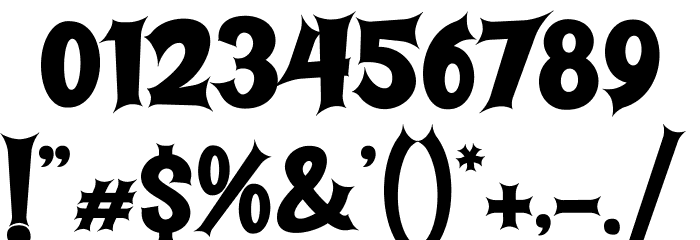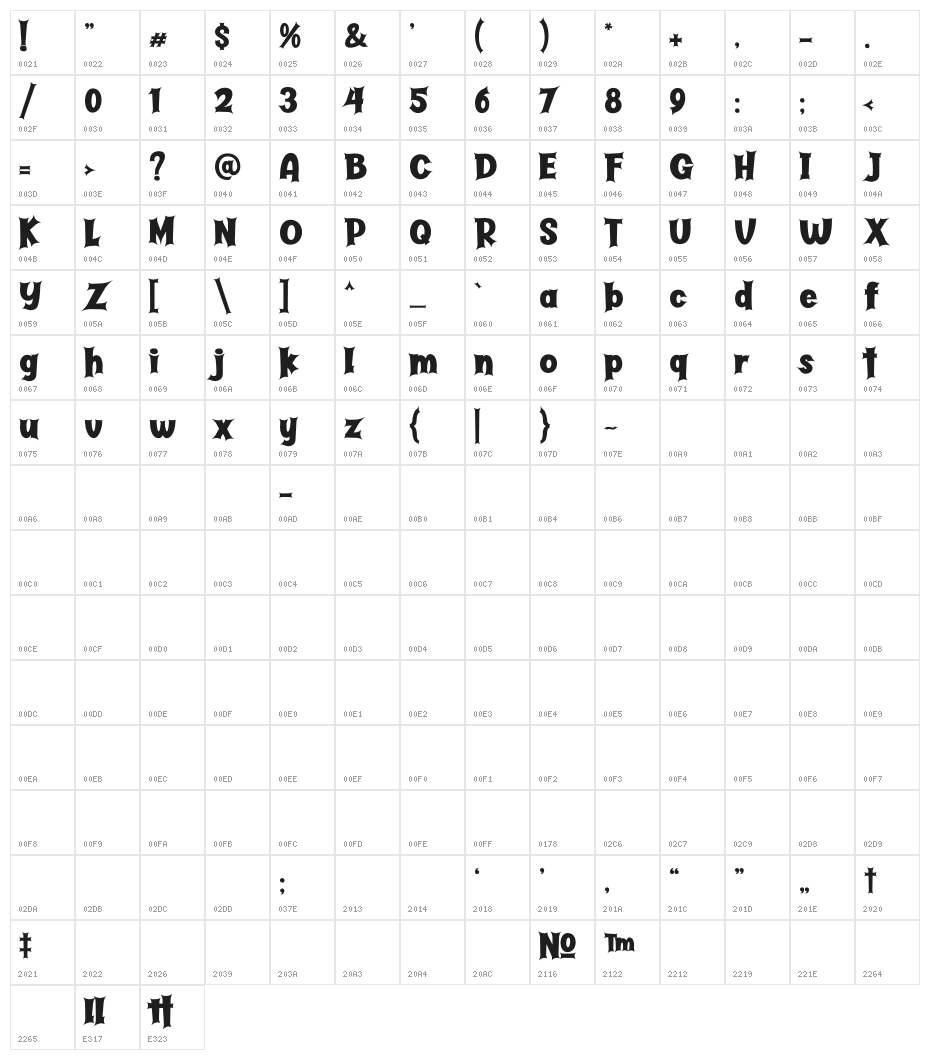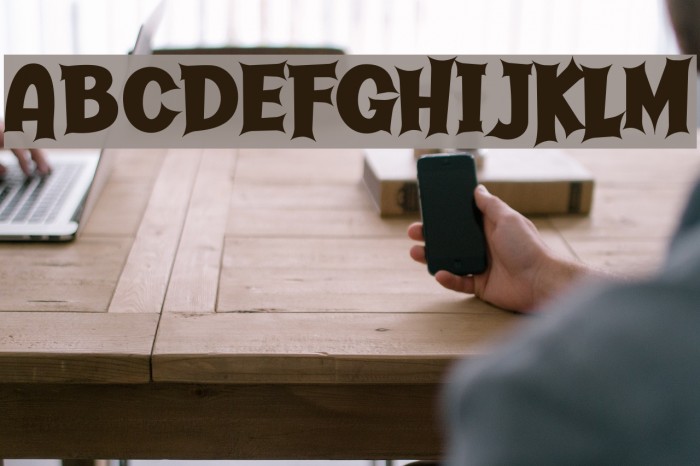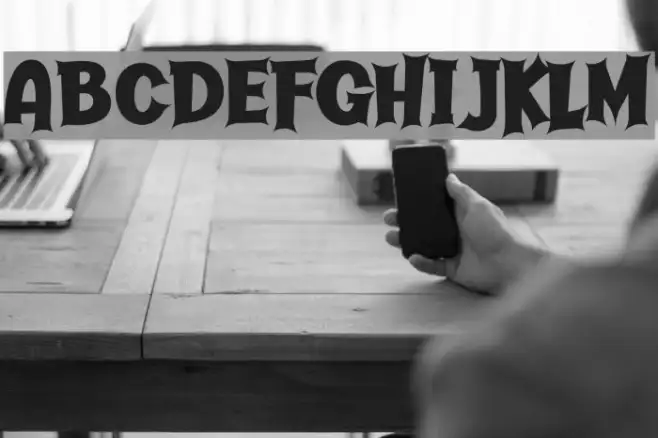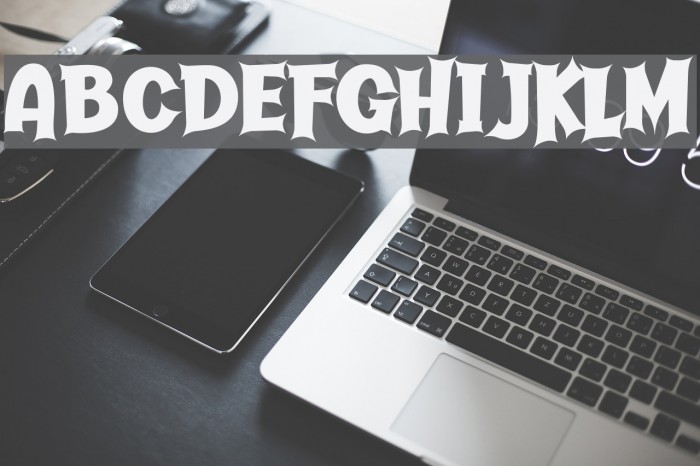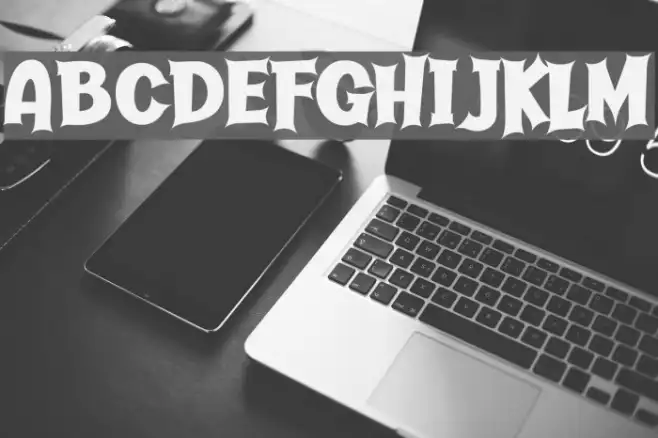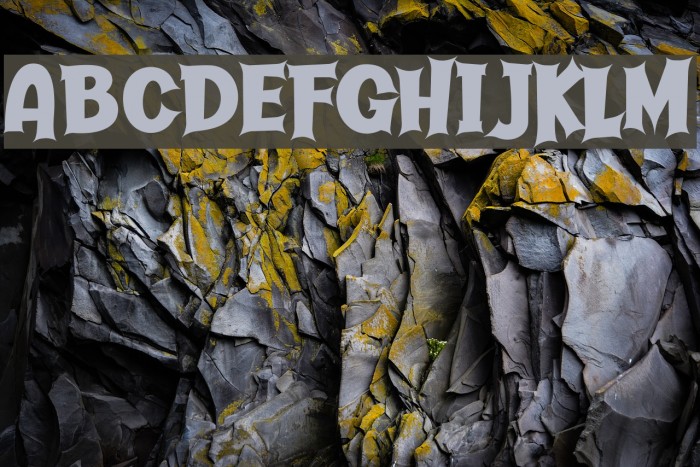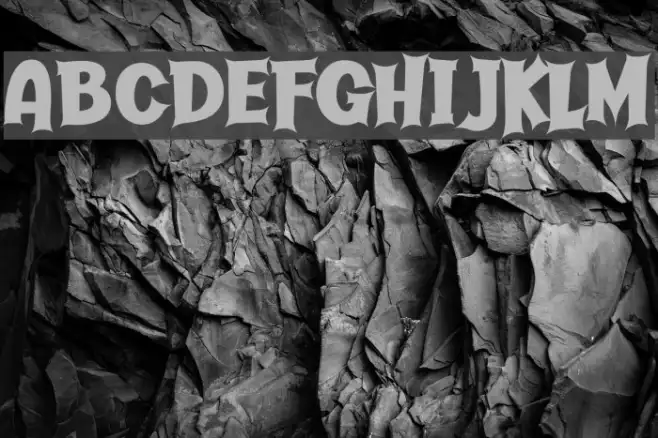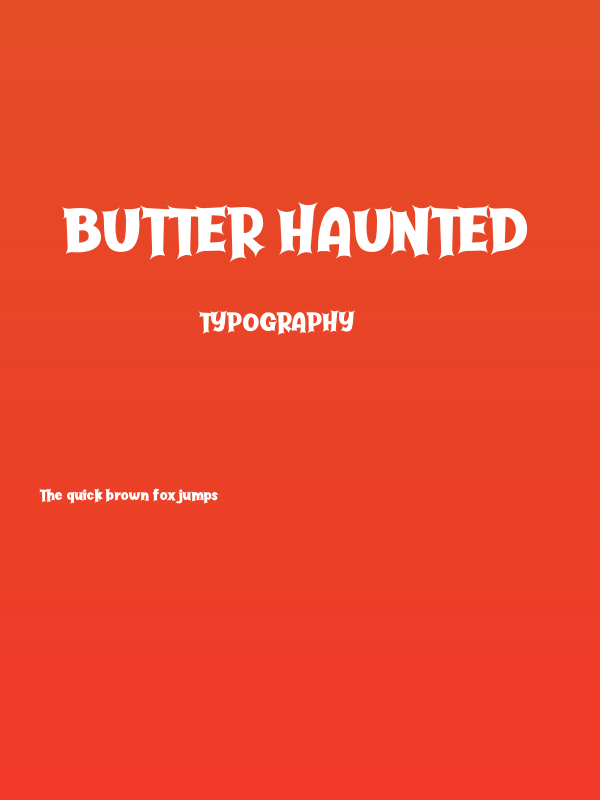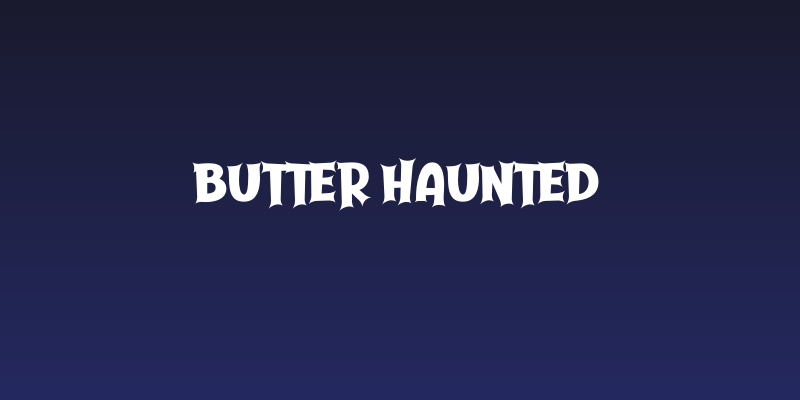
Butter Haunted Font
Butter Haunted Description
This font features a bold and dramatic style with thick, exaggerated strokes and sharp, pointed serifs. The letters have a slightly gothic appearance, with a playful yet eerie vibe, making it suitable for themes that require a touch of the supernatural or whimsical. The uppercase and lowercase characters maintain a consistent weight, providing a cohesive look across the alphabet. The numbers and special characters are equally bold, ensuring they stand out in any design. The overall aesthetic is both eye-catching and memorable, perfect for making a statement.
| Proposed Projects | Ideal for Halloween-themed designs, posters, book covers, and branding that requires a bold, spooky touch. |